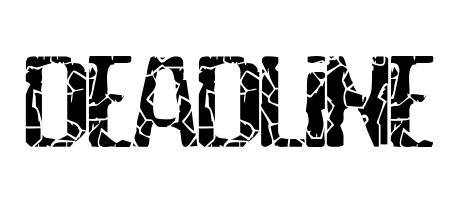
Deadline
By pOPdOG fONTS
DEADLINE is a bold, sans-serif typeface with a unique distressed texture. Each letter appears cracked and fragmented, suggesting a sense of urgency and pressure, like a deadline itself. The jagged edges add a gritty, raw quality, making it visually arresting. Its irregular surface contrasts with its clean, blocky letterforms.